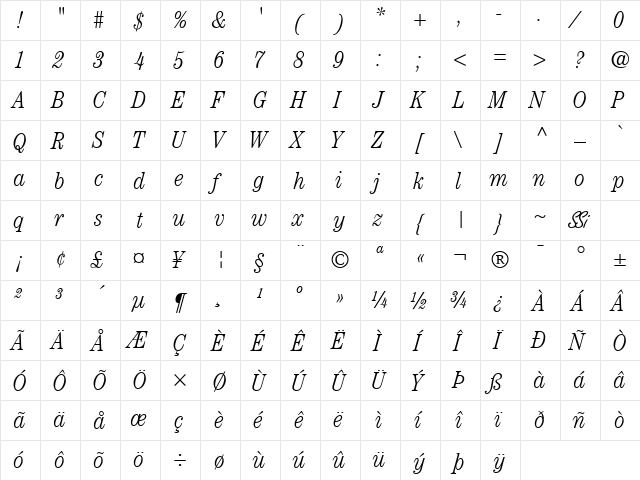
Century Light Condensed SSi Light Condensed Italic Font Preview
Design Context for Century Light Condensed SSi Typeface
Century Light Condensed SSi is a composed and adaptable typeface that performs quietly and consistently across a wide range of design contexts. The dynamic lean of this cut emphasises speed and emphasis in any layout. Its slender proportions lend an understated elegance to any composition. The condensed width makes it efficient for tight spaces without sacrificing legibility.
Pro Tip: Try Century Light Condensed SSi for annotation and caption copy alongside an upright companion — the contrast in angle creates a dynamic but ordered typographic system.